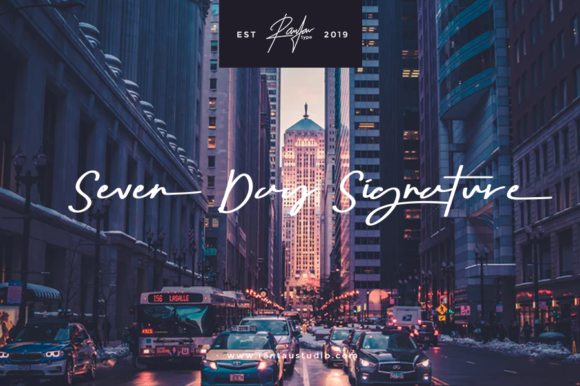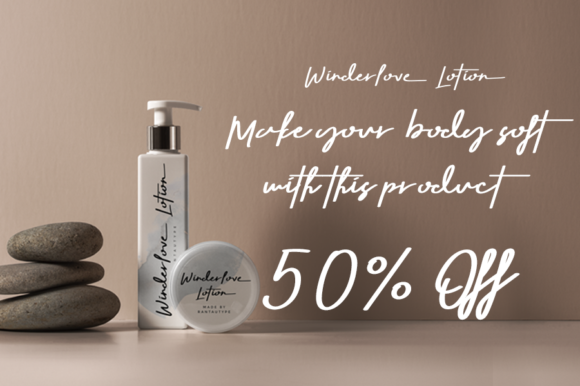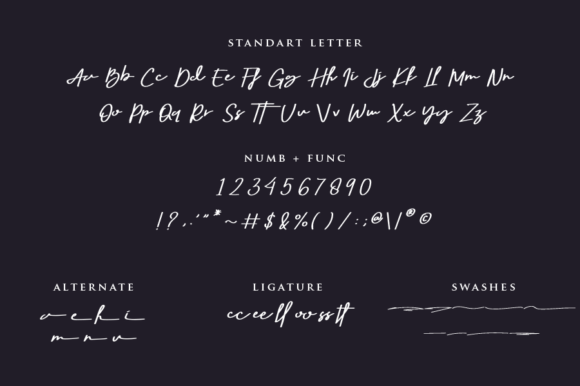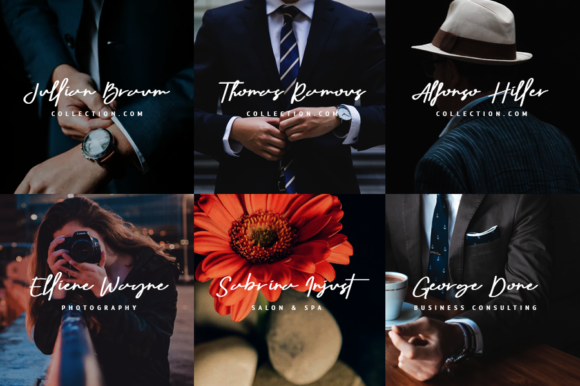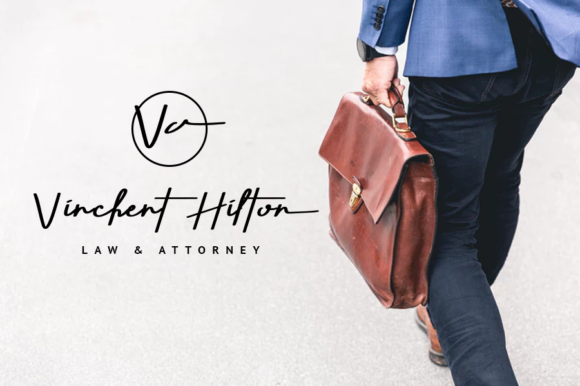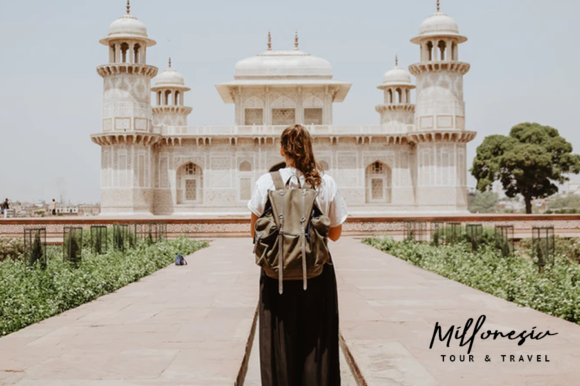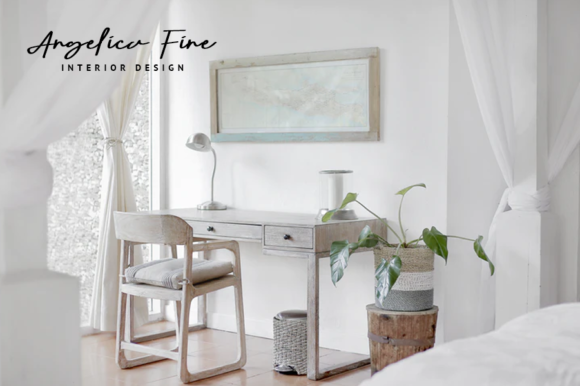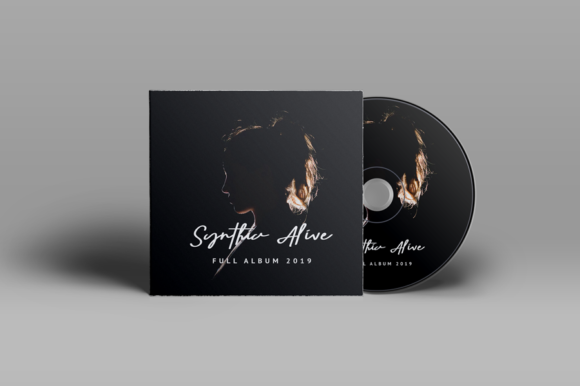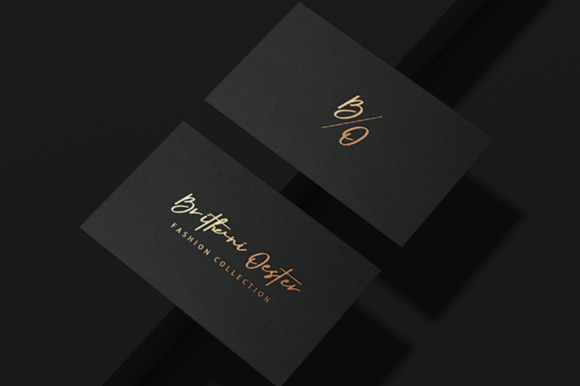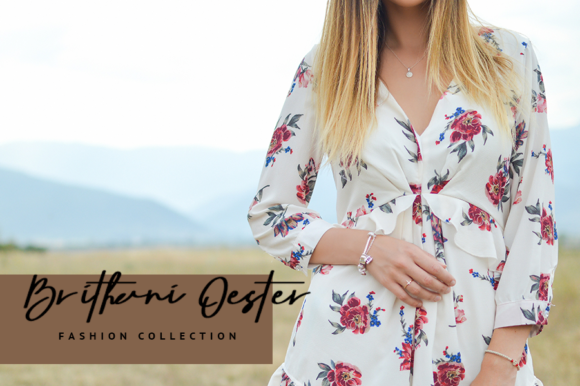
Seven Day Signature Font
About Seven Day Signature Font
Seven Day Signature is a sweet and charming script that works perfectly against the backdrop of modern and stylish motifs.